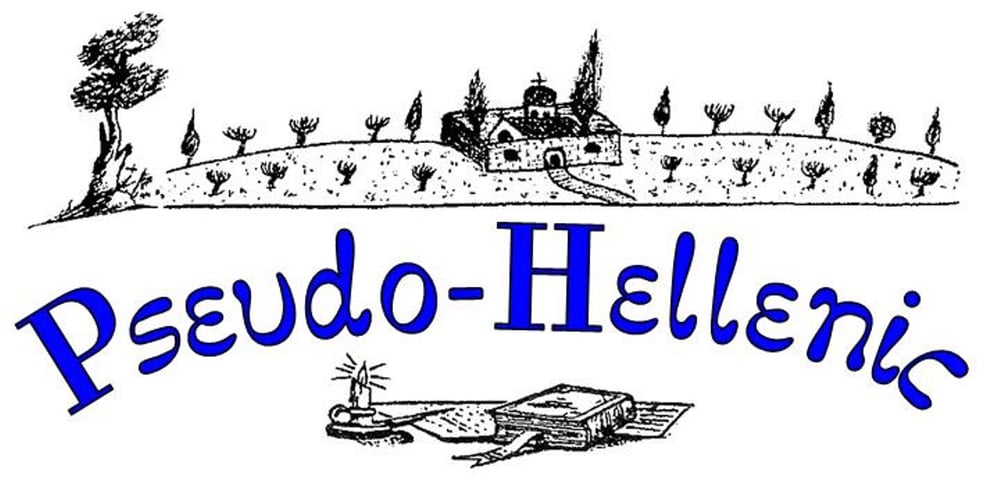
Pseudo-Hellenic Font Family was designed by published by Simeon out West. Pseudo-Hellenic contains 1 styles and family package options. Pseudo-Hellenic is a font based the Greek typeface of Firmin Didot. The original Greek typeface became standard during the Victorian era and remained popular until the last part of the twentieth century. Pseudo-Hellenic seeks to create an environment reminicent of the many Greek texts and is meant to re-create their ethos while communicating with a non-Greek speaking audience. Pseudo-Hellenic with full punctuation, a character 221 glyph character set that allows the user to type in most Western European Latin alphabet languages. Being a decorative font, it works best at larger point sizes.